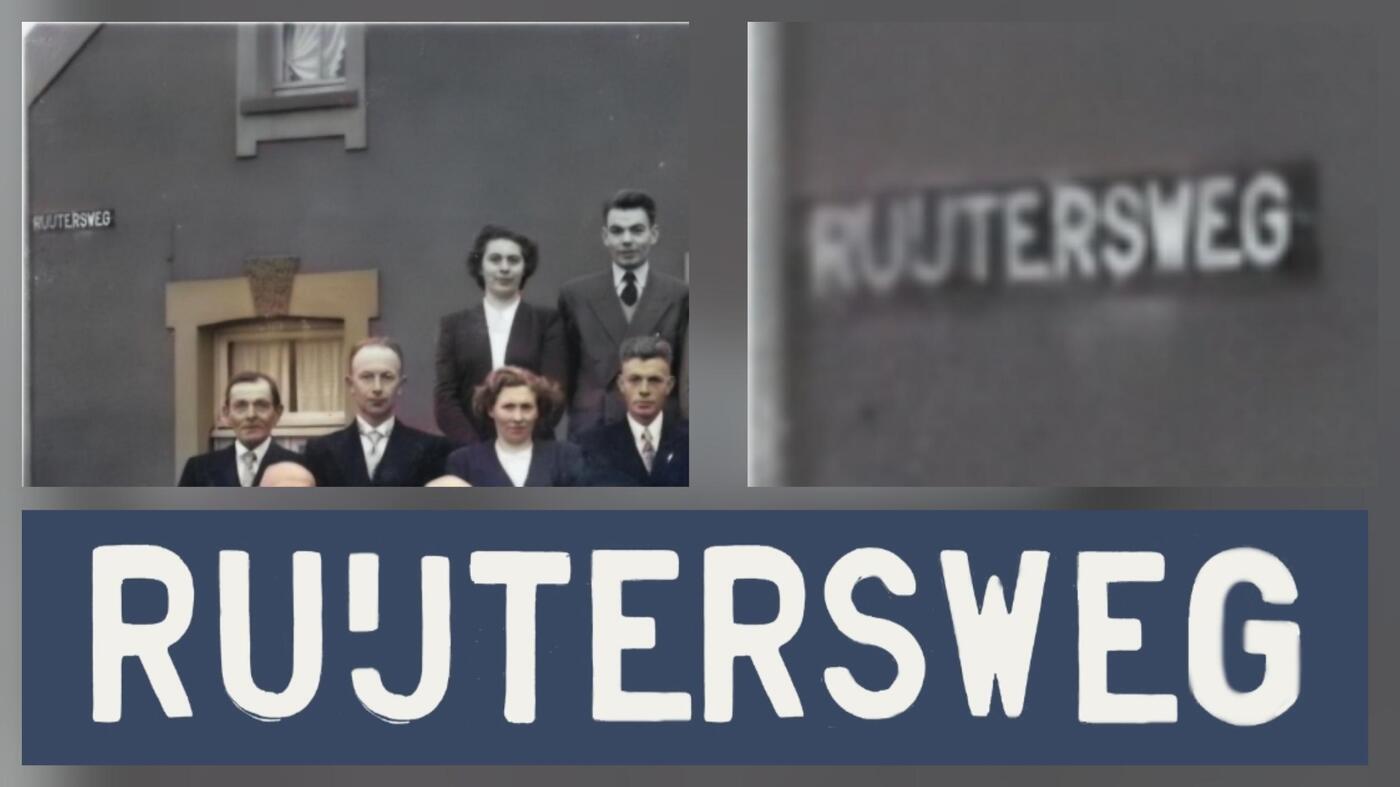
Old Dutch street sign font
I am looking for a font to restore a street sign which has hung at my house facade for  about 60 years. Unfortunately it fell off in the past and now I am left with only (old) pictures of the sign.
In order to recreate this sign/plate I need to be able to recognise the font. So it should be some Dutch  historic "font" I guess, used for street signs between 1918 and 1960 or 1970. But other than that I have no clue.
I have more historic photos if needed, or poctured of the cast the sign left on the façade when it came down.